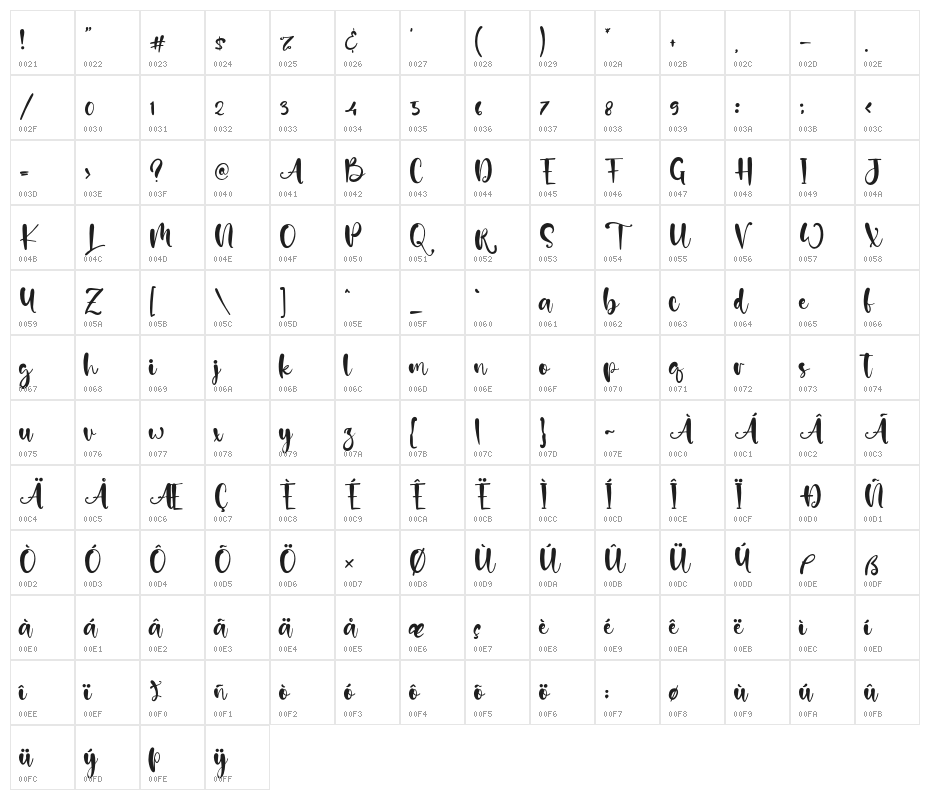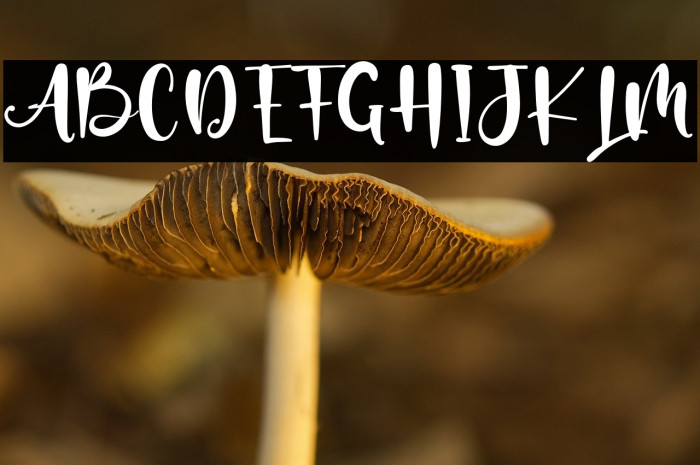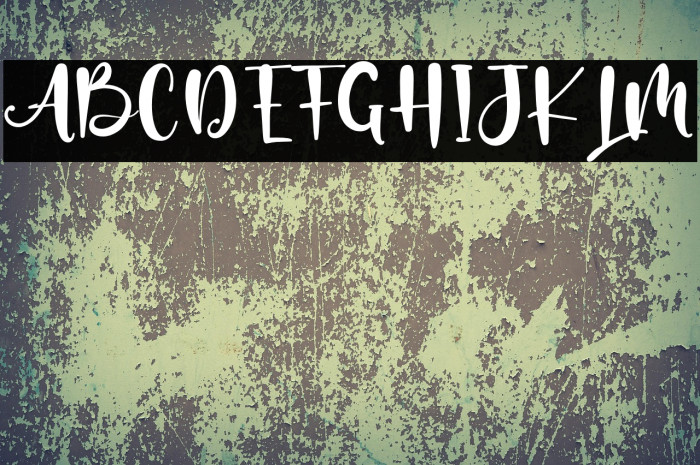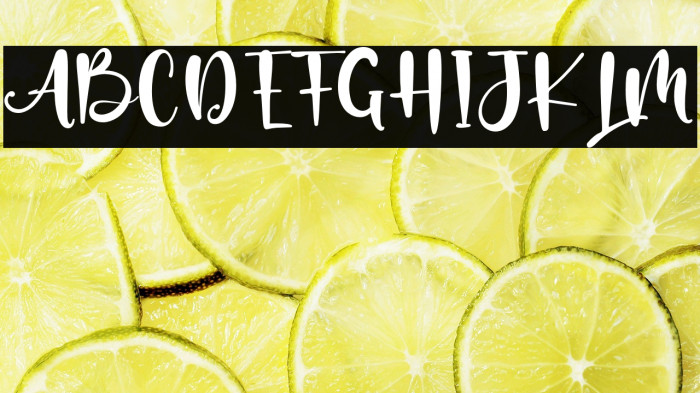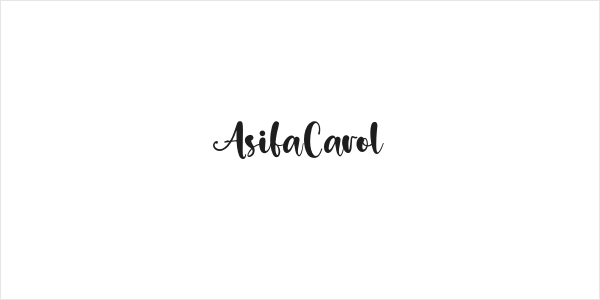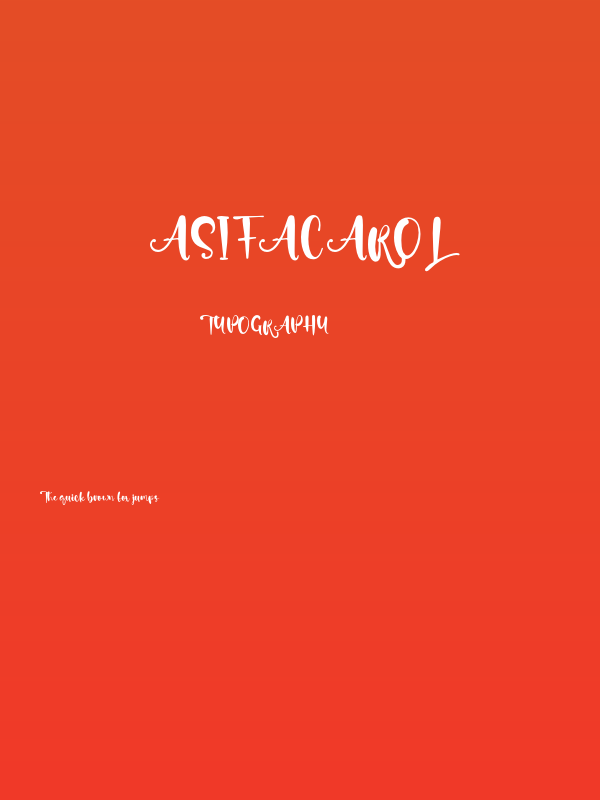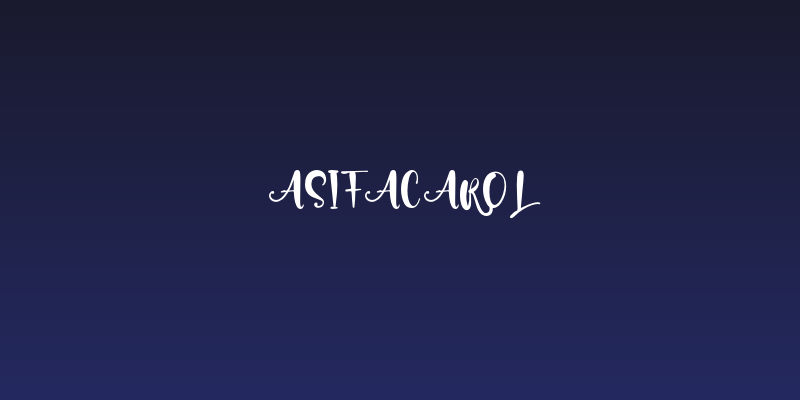
AsifaCarol Font
AsifaCarol Description
This font features a playful and artistic script style with a handwritten appearance. The characters are bold and fluid, with a dynamic flow that gives a sense of movement and creativity. The uppercase letters are slightly more structured, while the lowercase letters exhibit a more freeform style, adding to the overall charm. The numbers and special characters maintain the same lively and expressive quality, making this font suitable for a variety of creative projects. Its unique style is perfect for adding a personal touch to any design.